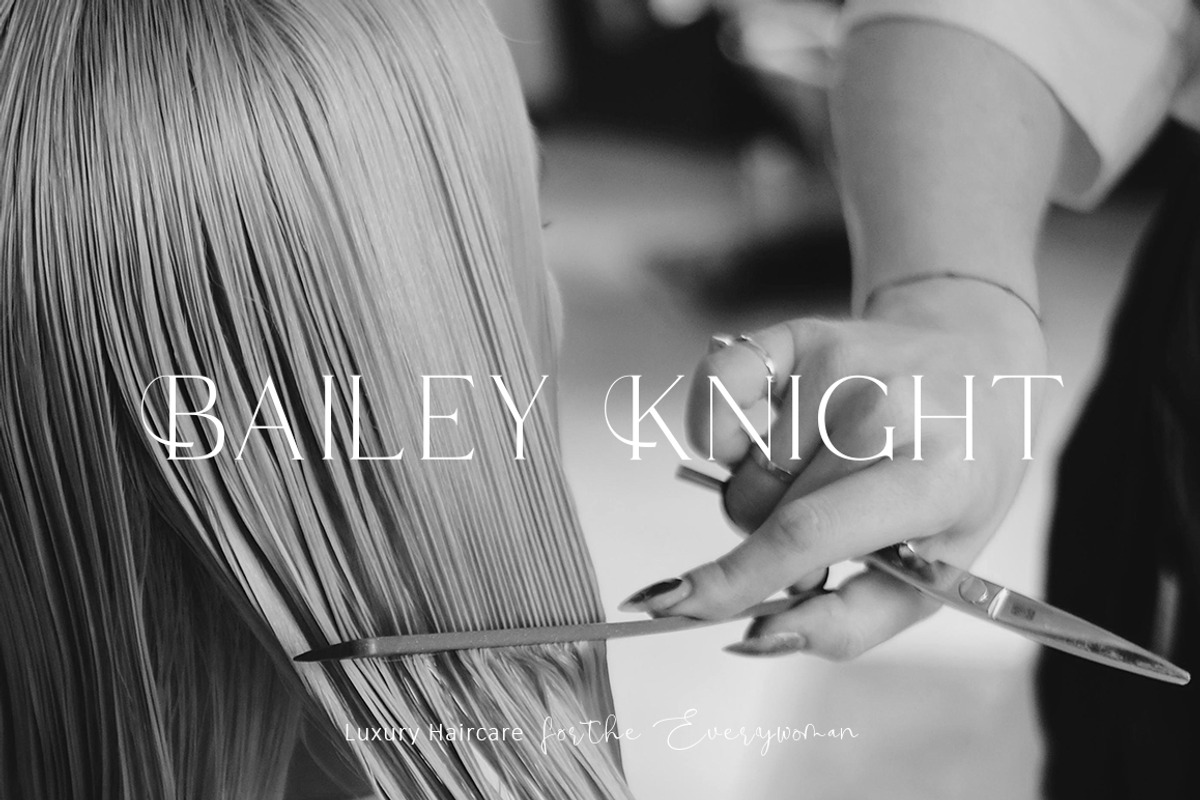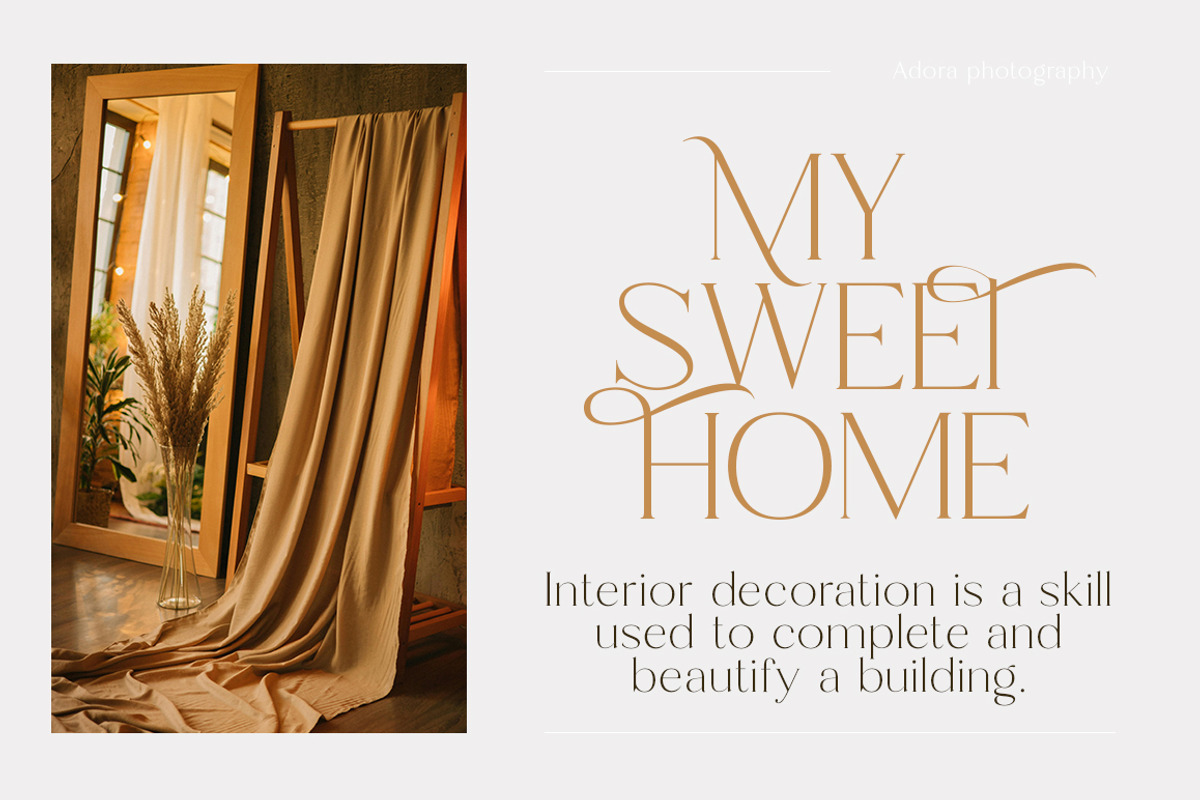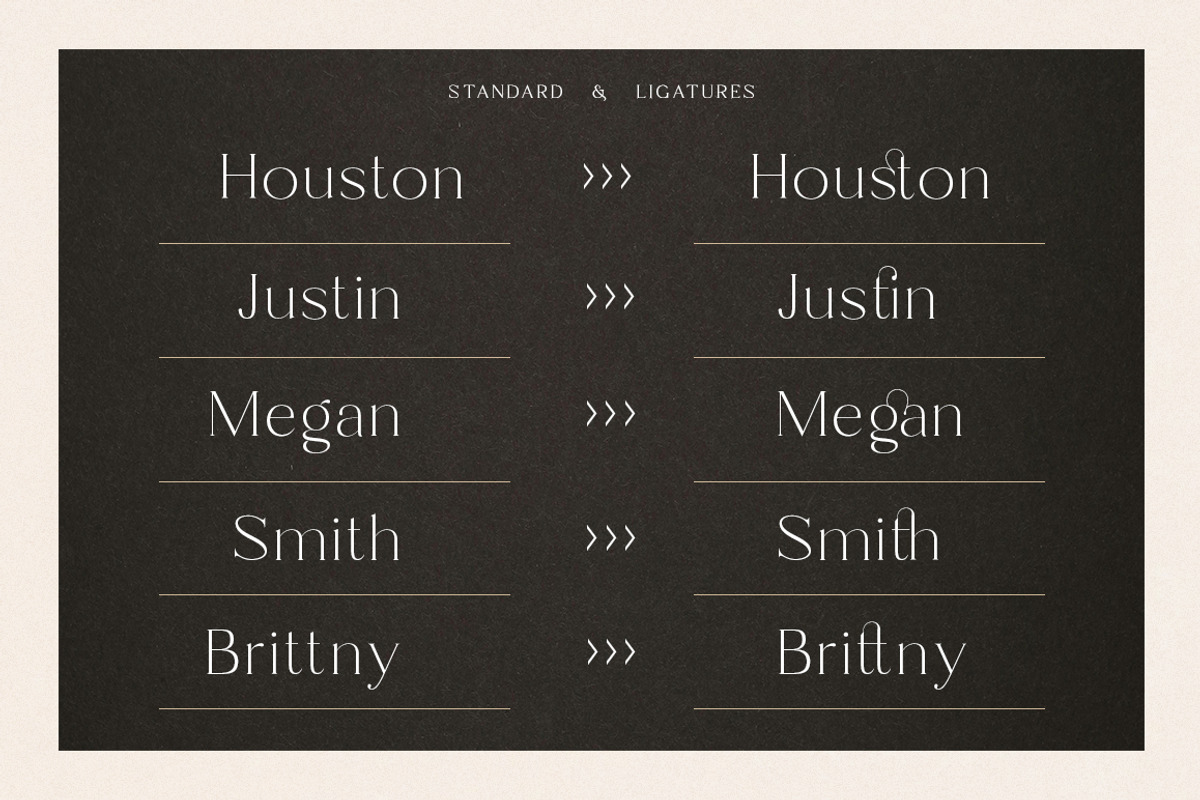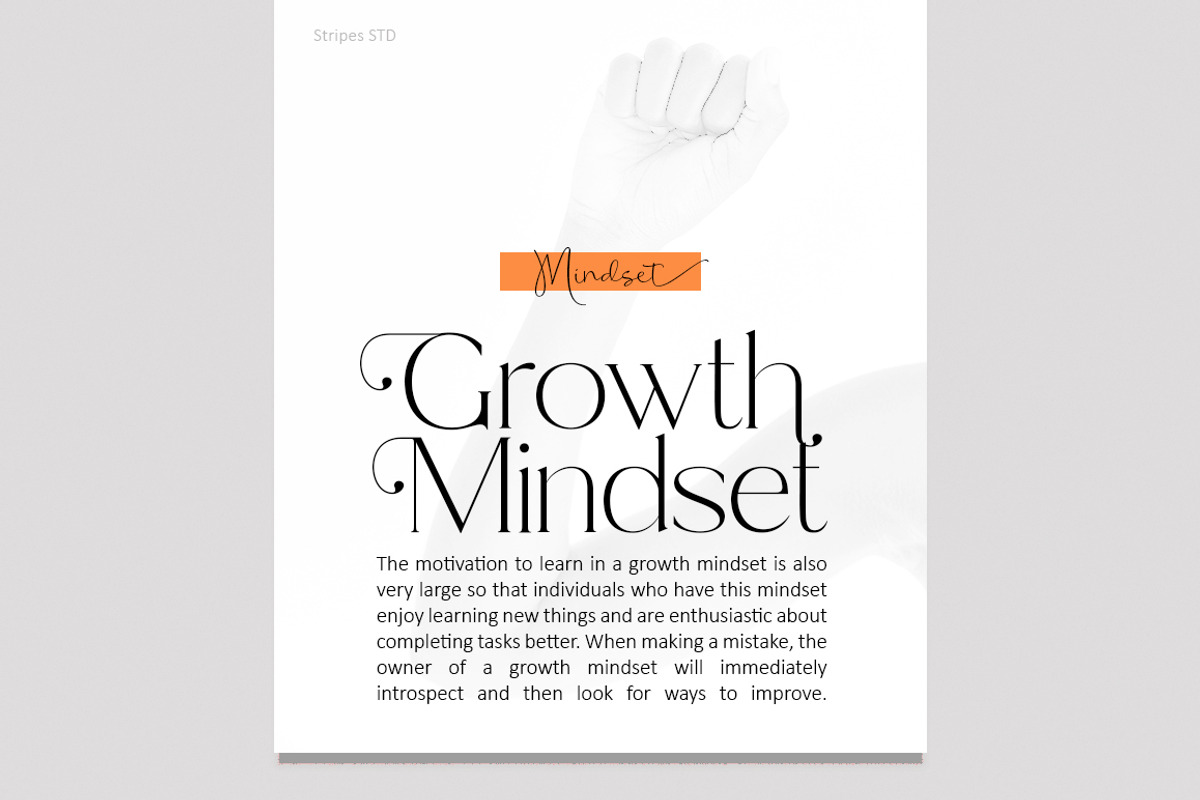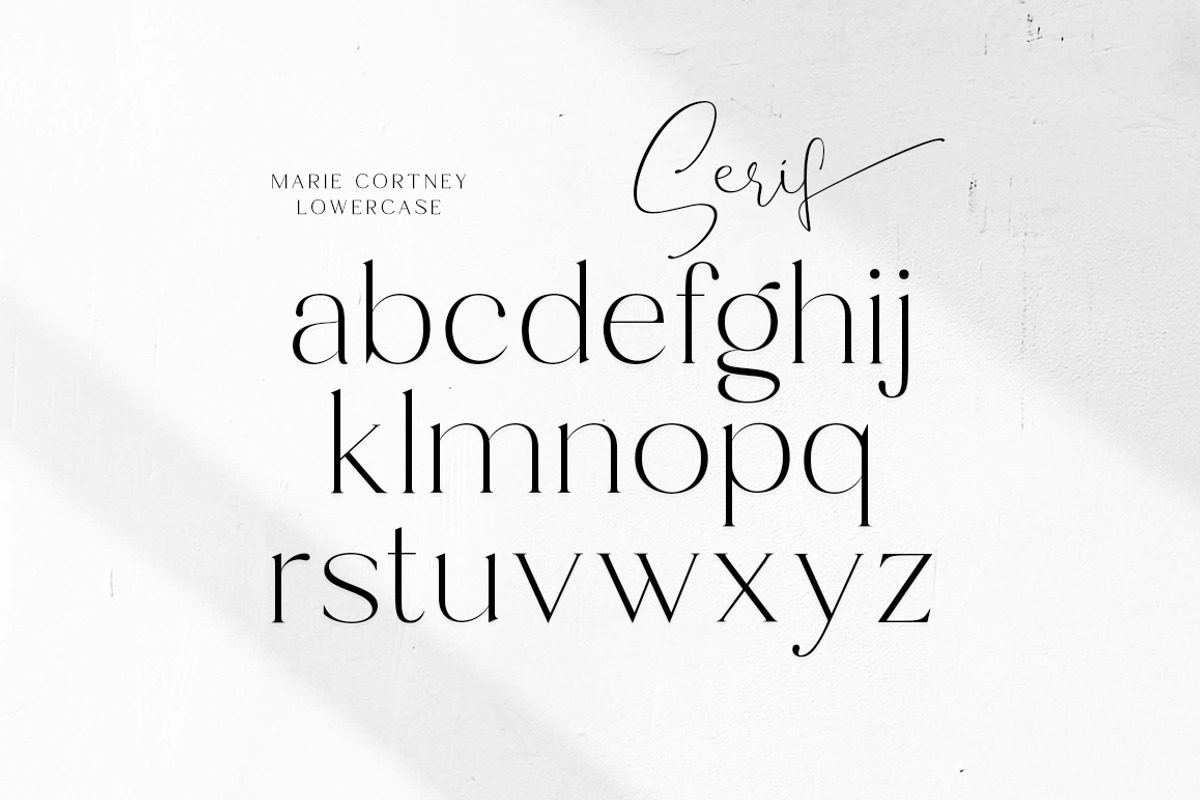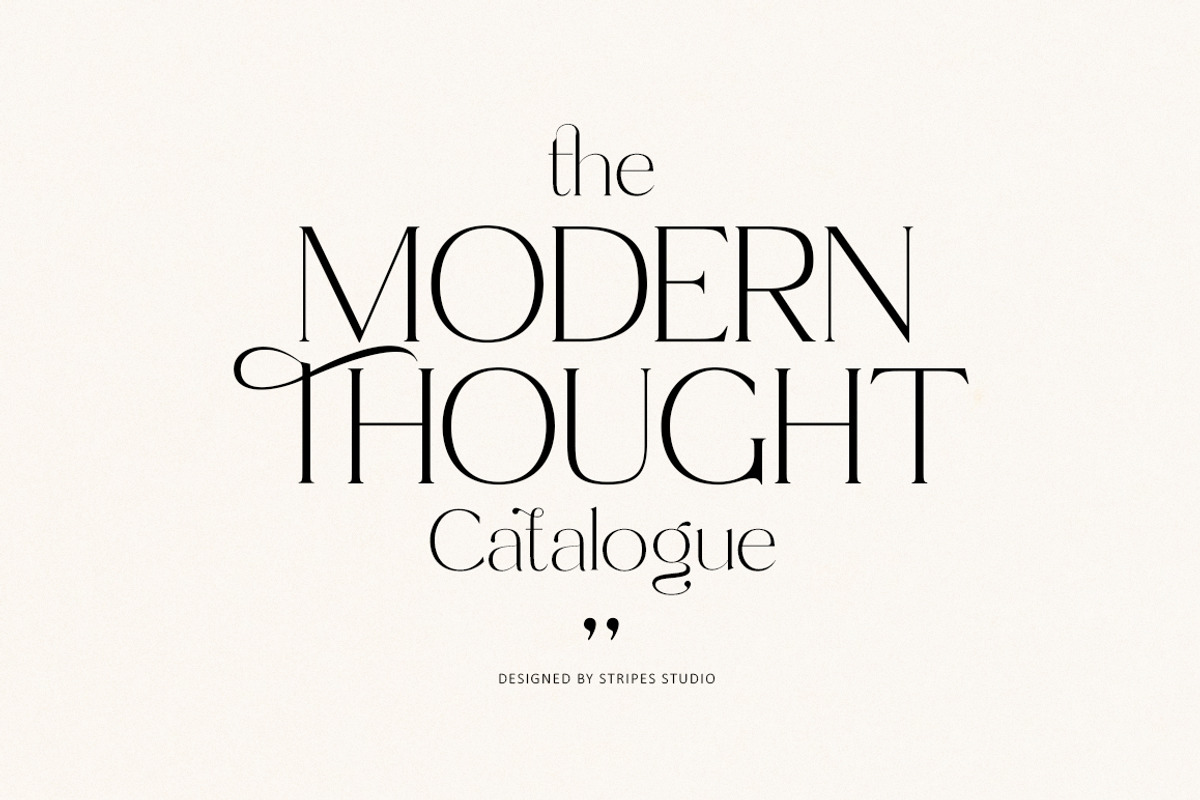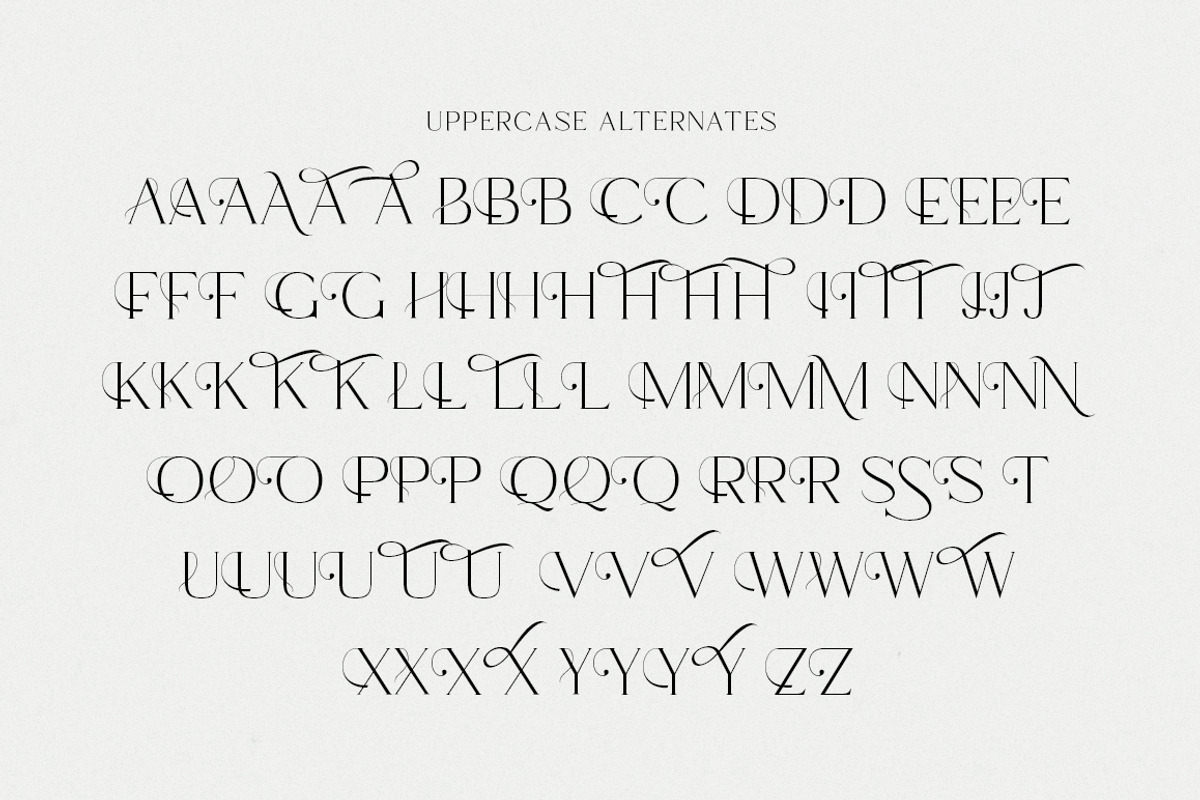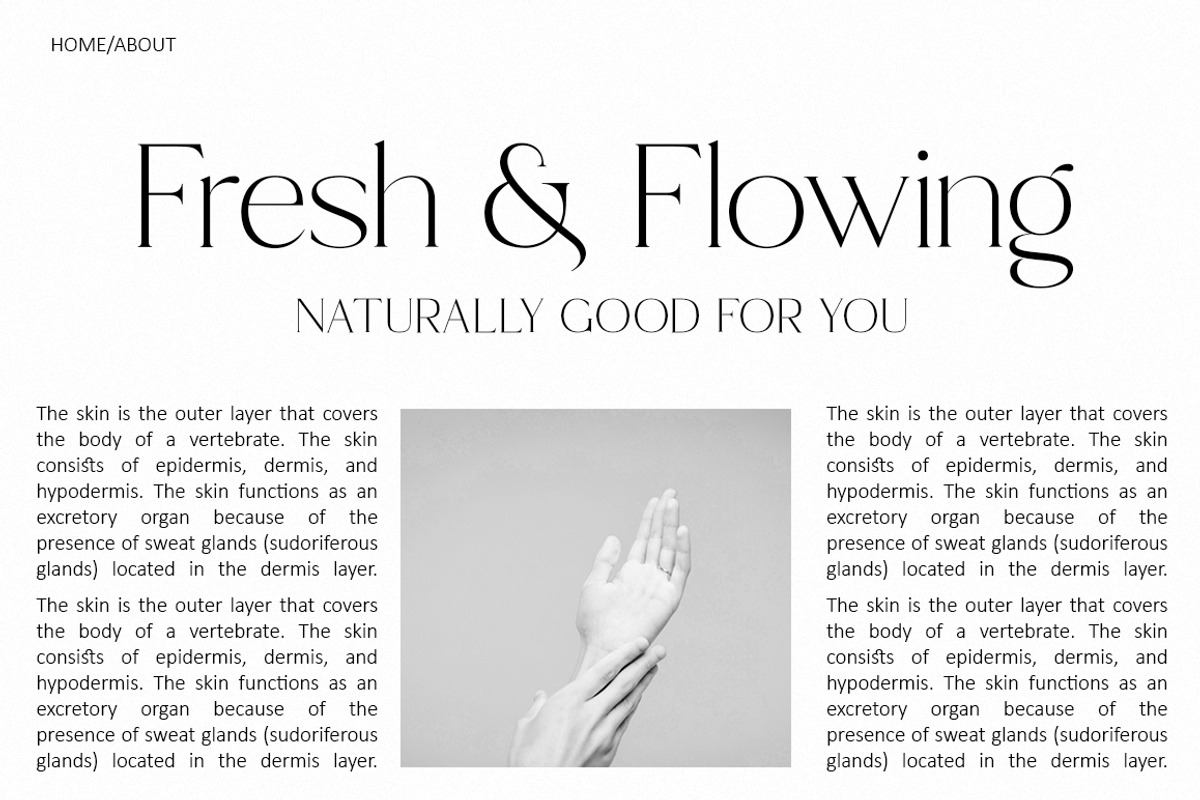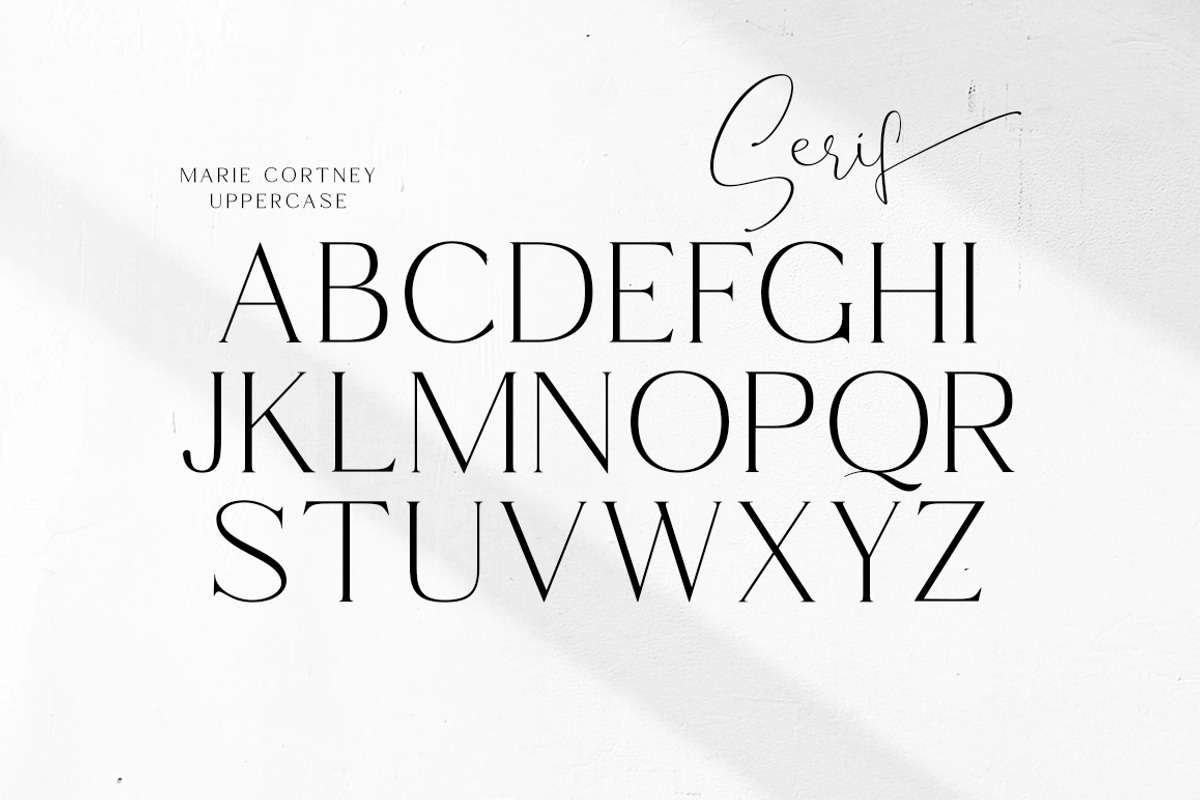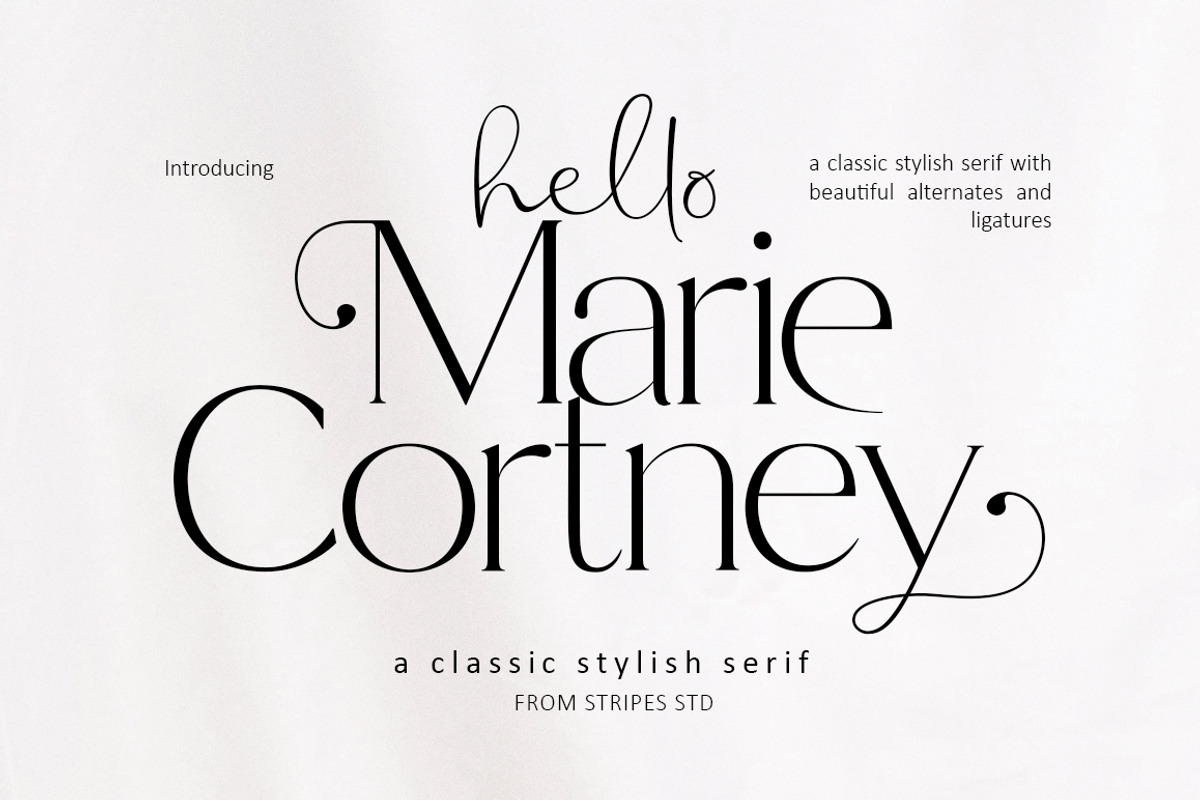
Marie Cortney
Marie Cortney is a stylish serif typeface that exudes elegance and sophistication. Featuring refined ligatures and graceful alternates, this font adds character and uniqueness to your typography. Whether you're designing for branding, editorial layouts, invitations, or social media, Marie Cortney Medium offers the perfect balance of classic beauty and modern flair. Enhance your creative projects with a touch of charm and timeless style.